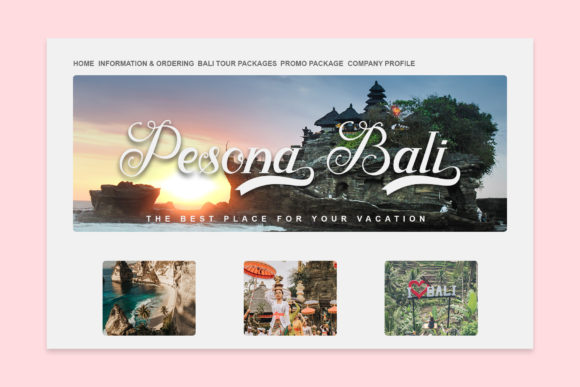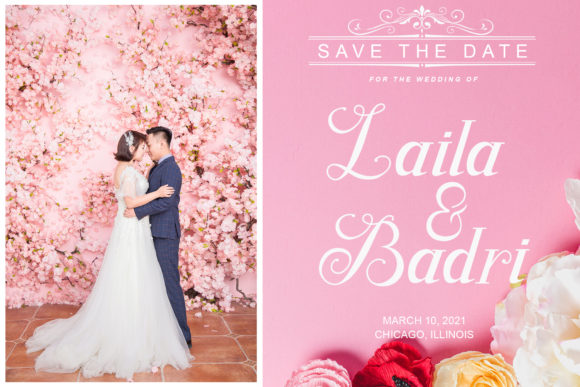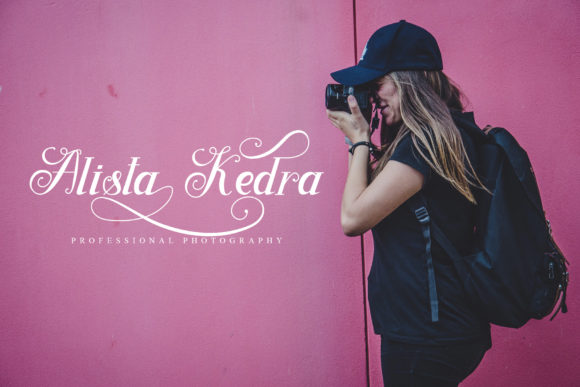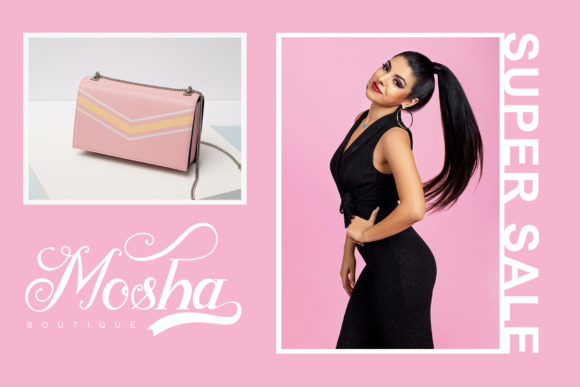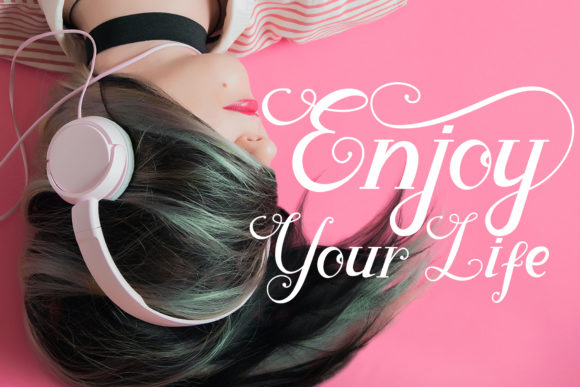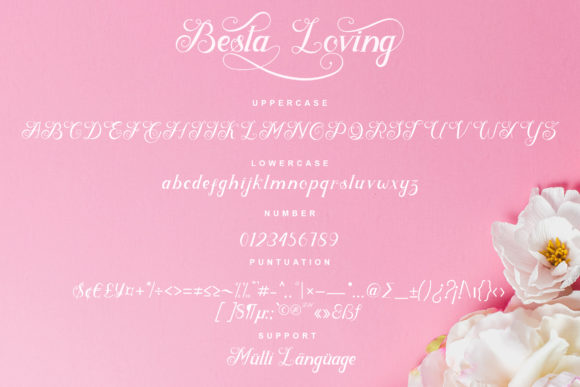
Besta Loving Font: Add a Touch of Romance to Your Designs
Are you looking for a font that can add a romantic feel to your designs? Look no further than Besta Loving Font. This enchanting handwritten font is perfect for a wide range of applications, from greeting cards to headlines, and is sure to make your project stand out. In this article, we’ll take a closer look at Besta Loving Font and explore its features, benefits, and uses.
What is Besta Loving Font?
Besta Loving Font is a versatile script font that is designed to add a touch of romance and elegance to your designs. With its beautiful, flowing script and intricate details, this font is perfect for creating stunning headlines, titles, and text. Whether you’re designing a greeting card, invitation, or social media post, Besta Loving Font is sure to make your project look professional and visually appealing.
Features of Besta Loving Font
So, what makes Besta Loving Font so special? Here are just a few of its key features:
- PUA Encoded: Besta Loving Font is PUA (Private Use Area) encoded, which means you can access all of the beautiful glyphs and swashes with ease. This makes it easy to customize your text and add unique touches to your design.
- Handwritten Script: Besta Loving Font has a beautiful, handwritten script that is perfect for creating romantic and elegant text. The font’s flowing script and intricate details make it perfect for a wide range of applications.
- Versatile: Besta Loving Font is a versatile font that can be used for a wide range of applications, from greeting cards to headlines. Whether you’re designing a digital project or a print project, this font is sure to work well.
Benefits of Using Besta Loving Font
So, why should you use Besta Loving Font in your designs? Here are just a few benefits:
- Adds a Romantic Feel: Besta Loving Font is designed to add a romantic feel to your designs. Whether you’re creating a wedding invitation or a Valentine’s Day card, this font is sure to set the tone.
- Easy to Use: Besta Loving Font is easy to use, even if you’re not a professional designer. The font’s PUA encoding makes it easy to access all of the glyphs and swashes, and the font’s versatility makes it perfect for a wide range of applications.
- Unique and Creative: Besta Loving Font is a unique and creative font that is sure to make your project stand out. With its beautiful, handwritten script and intricate details, this font is perfect for designers who want to add a touch of elegance to their designs.
Uses of Besta Loving Font
So, what can you use Besta Loving Font for? Here are just a few ideas:
- Greeting Cards: Besta Loving Font is perfect for creating stunning greeting cards for special occasions like weddings, anniversaries, and Valentine’s Day.
- Headlines: Besta Loving Font is a great font for creating headlines for blogs, social media posts, and other digital projects.
- Invitations: Besta Loving Font is perfect for creating beautiful invitations for weddings, baby showers, and other special occasions.
- Signs and Banners: Besta Loving Font can be used to create stunning signs and banners for events, businesses, and other applications.
Tips for Using Besta Loving Font
Here are a few tips for using Besta Loving Font in your designs:
- Use it Sparingly: Besta Loving Font is a beautiful font, but it can be overwhelming if used too much. Use it sparingly to add a touch of elegance to your design.
- Pair it with Other Fonts: Besta Loving Font can be paired with other fonts to create a unique and creative design. Try pairing it with a sans-serif font for a modern look.
- Experiment with Colors: Besta Loving Font looks great in a variety of colors. Experiment with different colors to find the one that works best for your design.
Besta Loving Font is a beautiful and versatile font that is perfect for adding a romantic feel to your designs. With its PUA encoding, handwritten script, and intricate details, this font is sure to make your project stand out. Whether you’re a designer or a crafter, Besta Loving Font is a great choice for a wide range of applications. So why not give it a try and see what you can create?